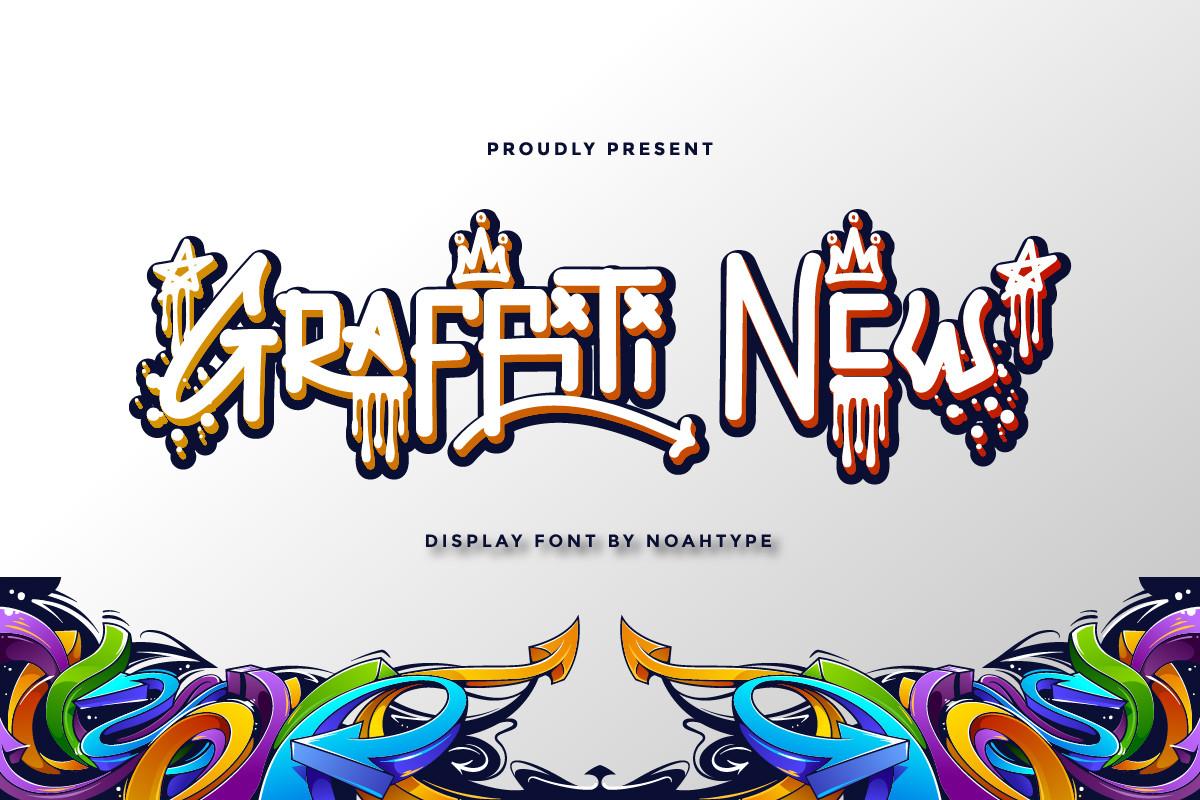
Graffiti New Font Description
Graffiti New is a display font with mural street graffiti style. The font was inspired by mural street arts and classic artwork. It has a unique and artistic graffiti style that will bring an authentic effect to your designs. This font works great for games, band covers, horror posters, mystery book covers, headlines, logos, posters, titles, etc.